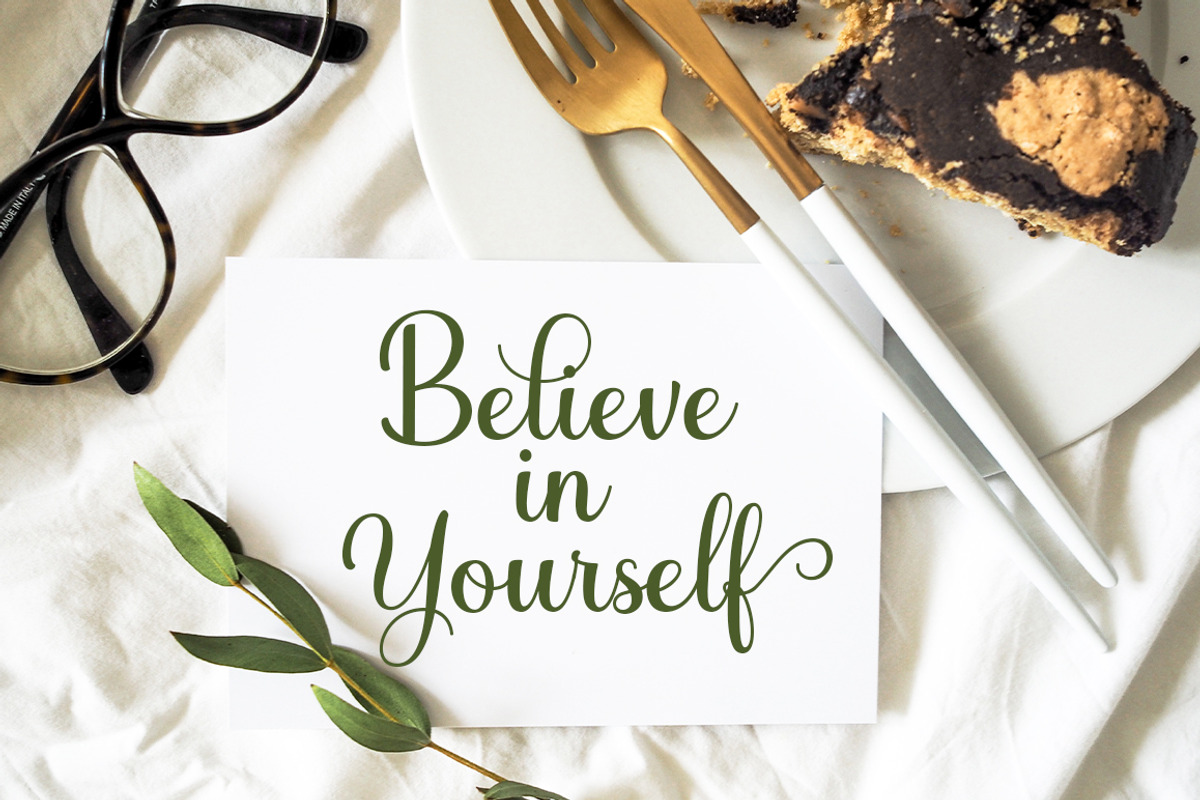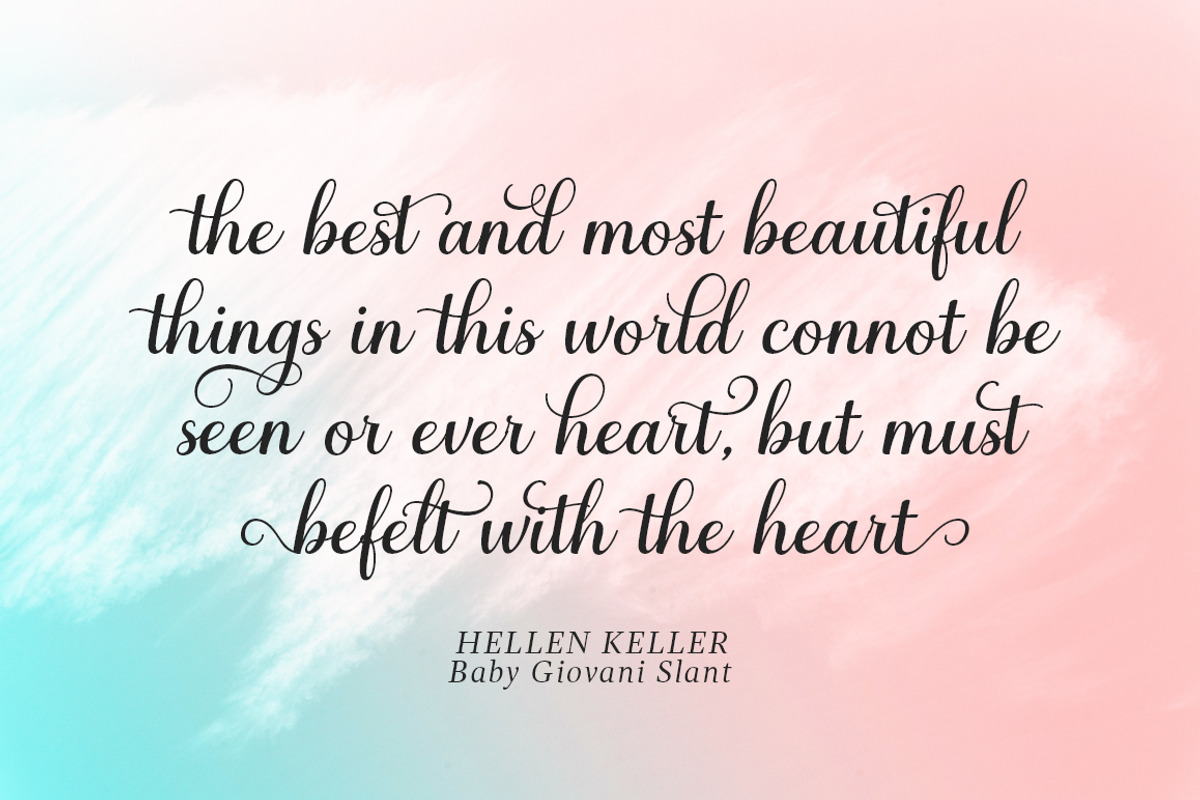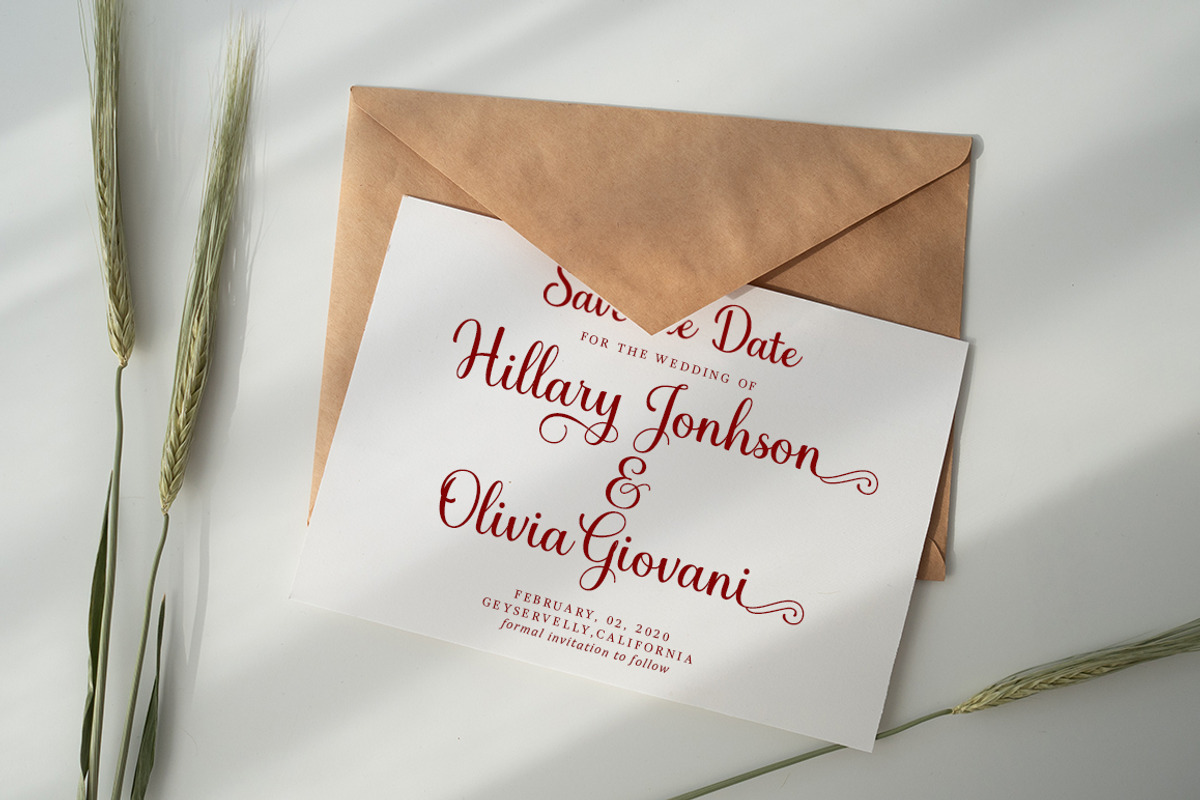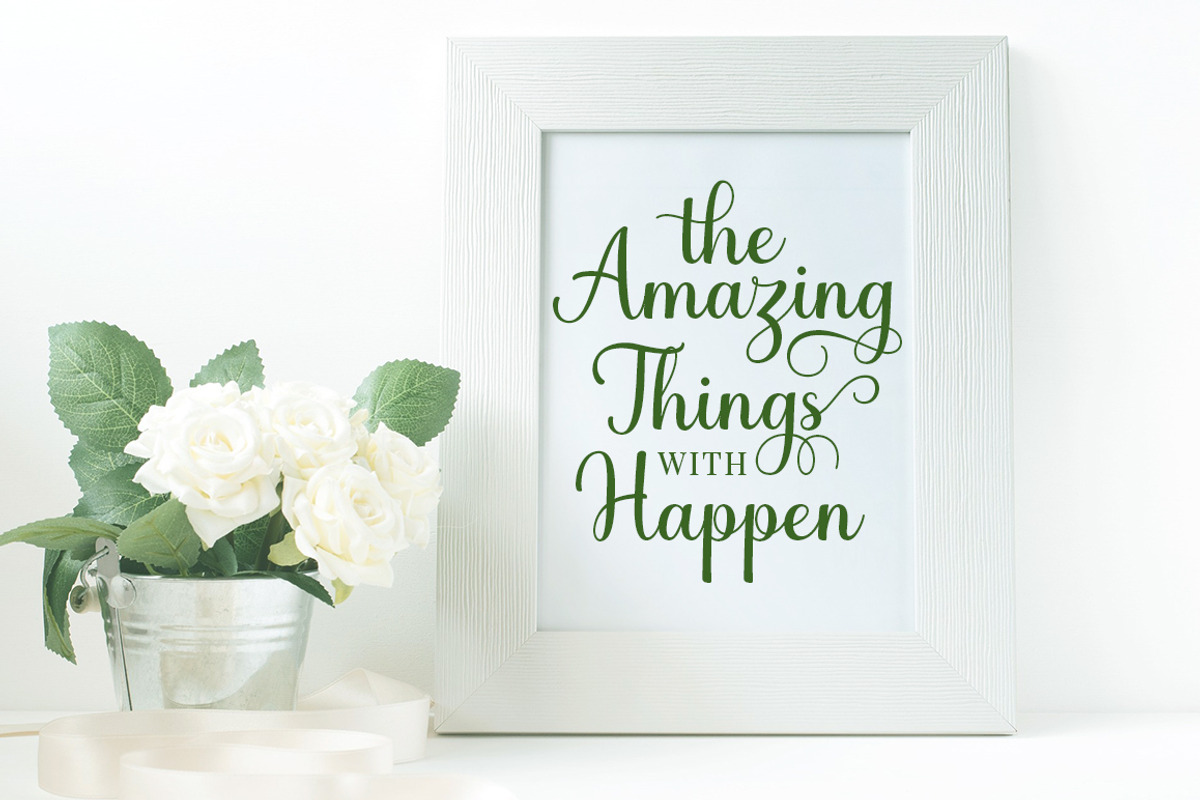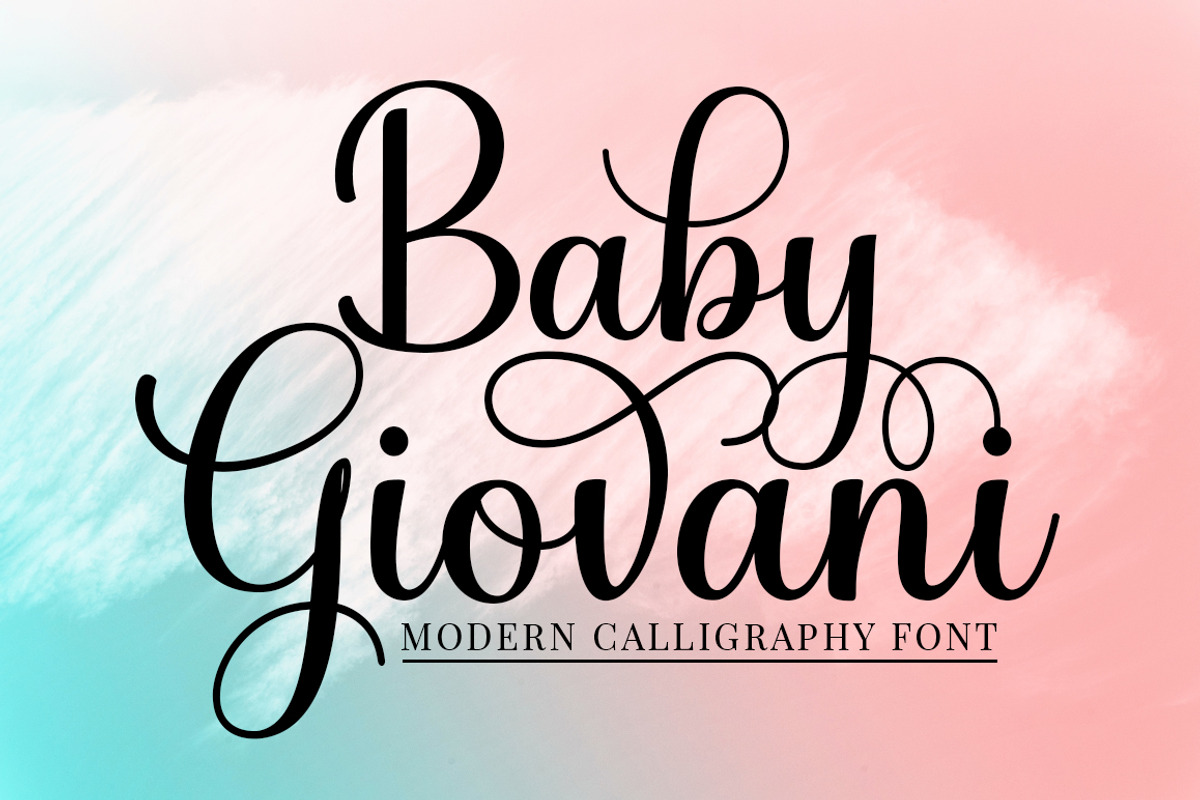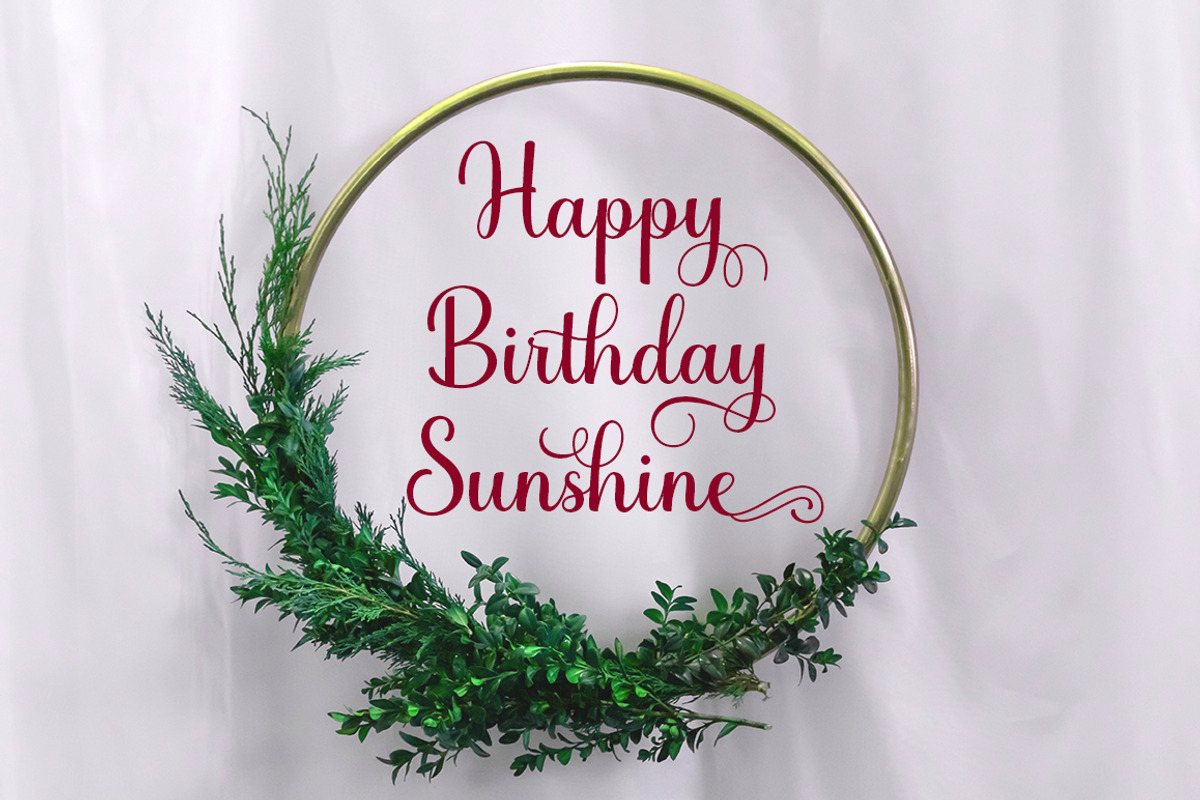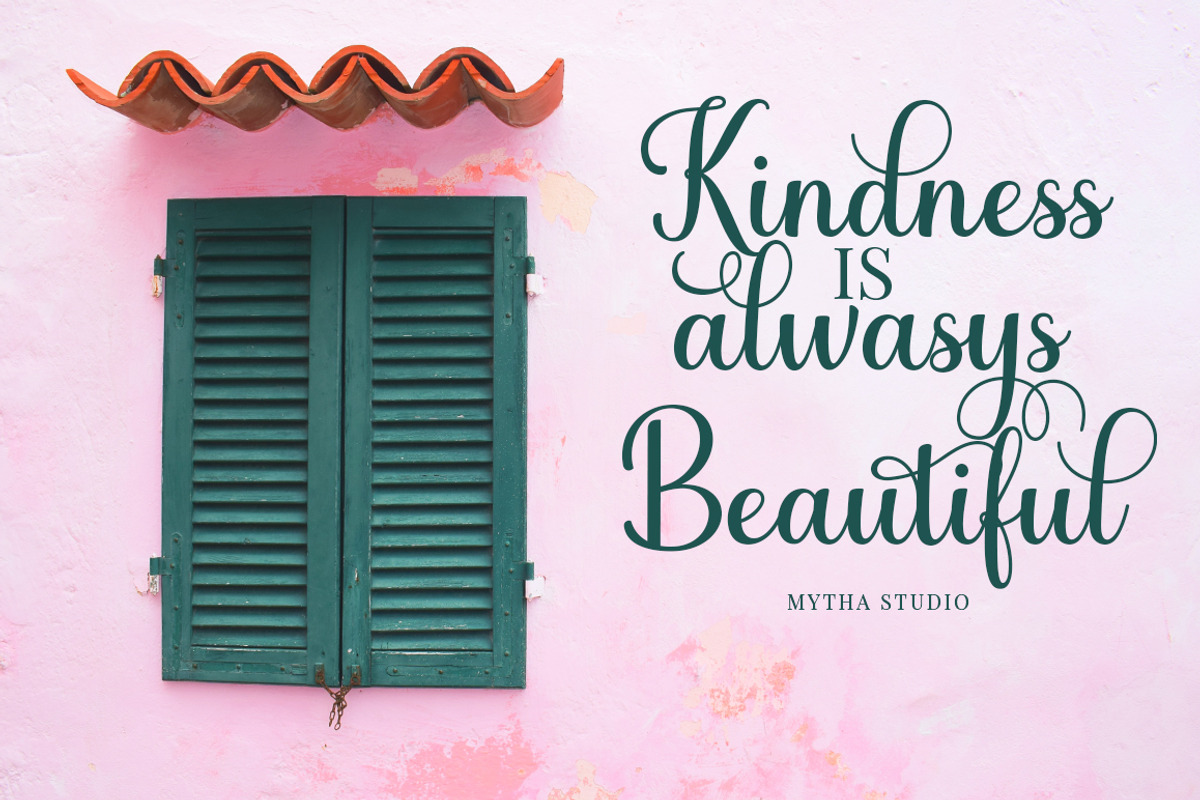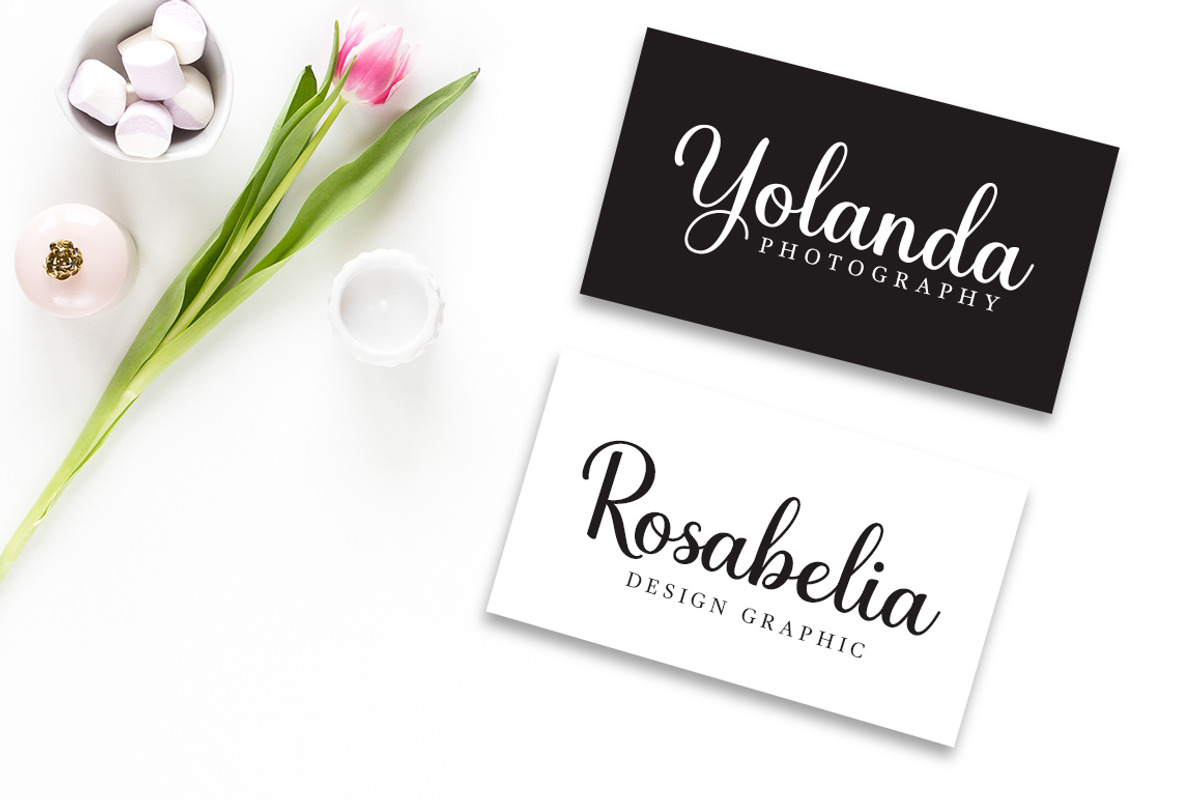
Baby Giovani Script
Introducing the latest styles Baby Giovani Script with the kind of modern calligraphy font, I hope you are interested in this font, if you want to use for your work this font can be used easily and simply because there are a lot of features in it to contain a complete set of letters lower and uppercase letters, assorted punctuation, numbers, and multilingual support. font also contains several ligatures and alternate style Stylistic Sets for those of you who have software that is able to work OpenType (Photoshop / Illustrator / InDesign).
Baby Giovani Script is suitable use for market design developed at this time, this font has a model Trendy, natural and gentle, with this font you can take advantage of the opportunity in every moment of one wonderful way to highlight the celebration of the feast of your best, because this font will be advocates for purposes such as wedding invitations, party, graduation, birthday, gathering, etc.